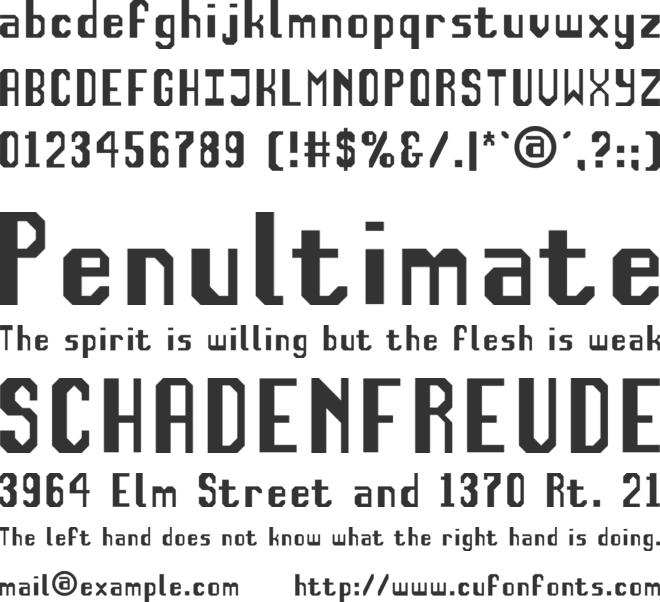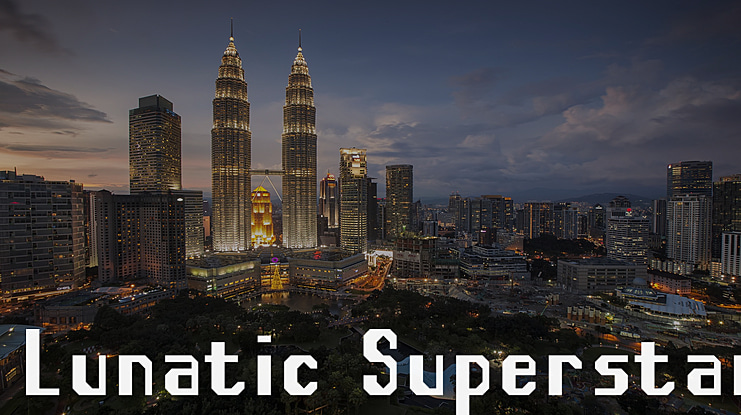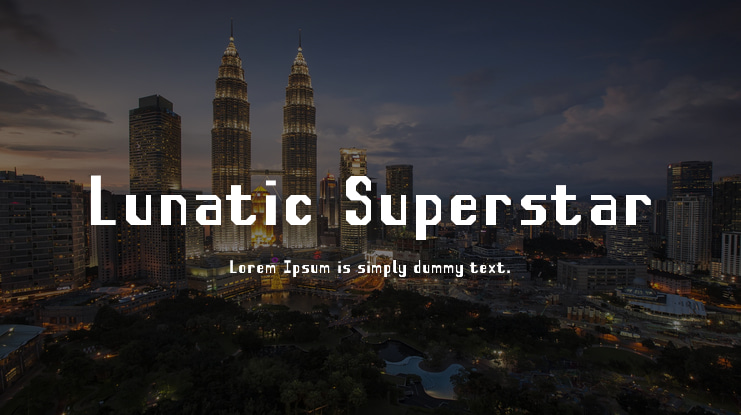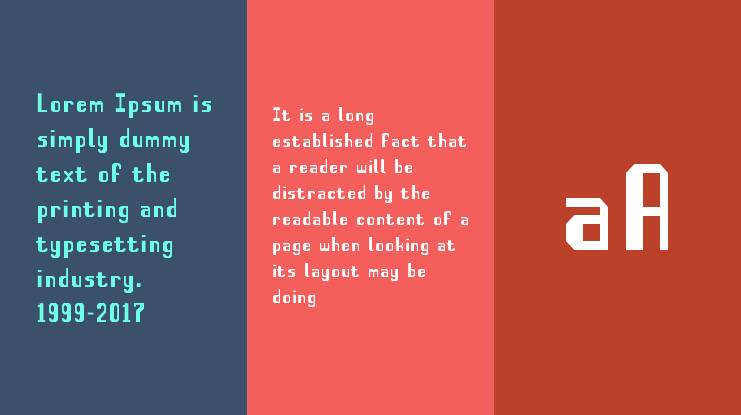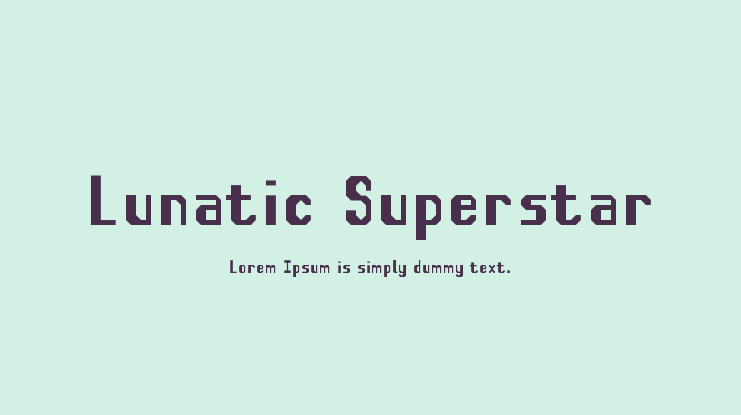
Lunatic Superstar Font
Lunatic Superstar is a new angular sans-serif font made by Heaven Castro.
It would have been the first font to initially created with BitFontMaker2.